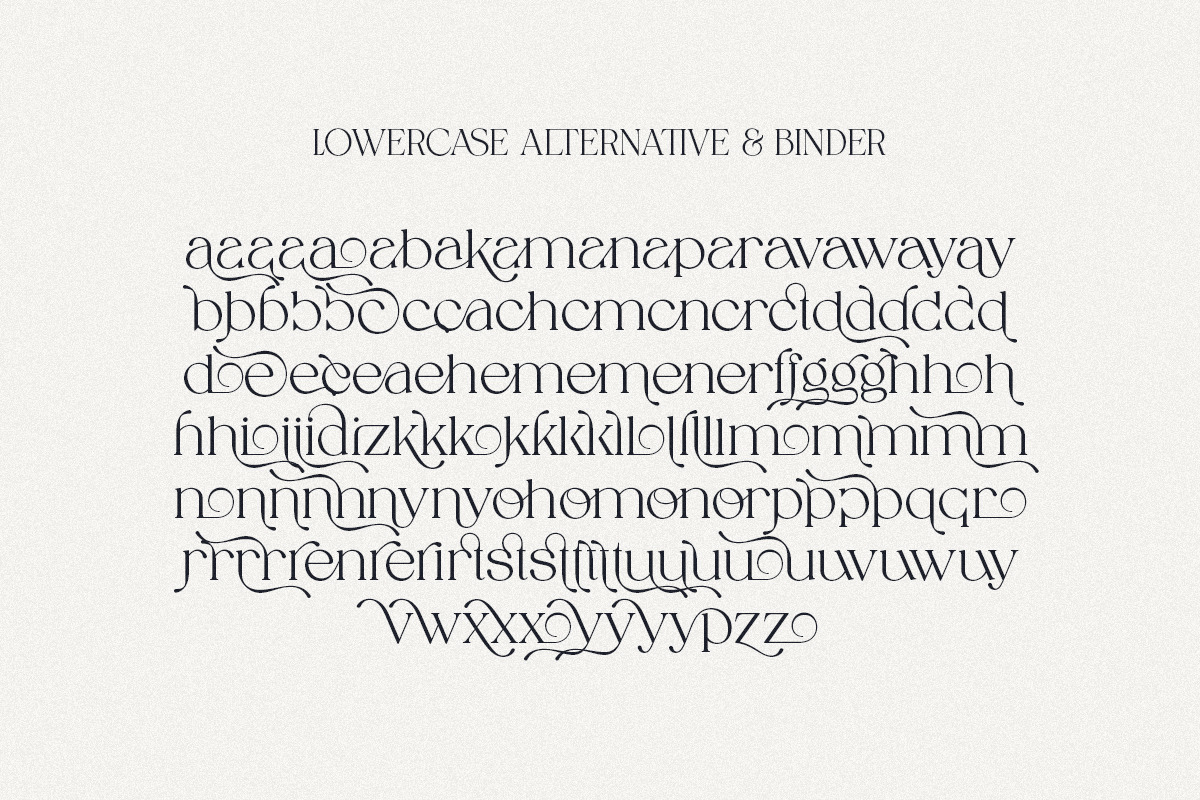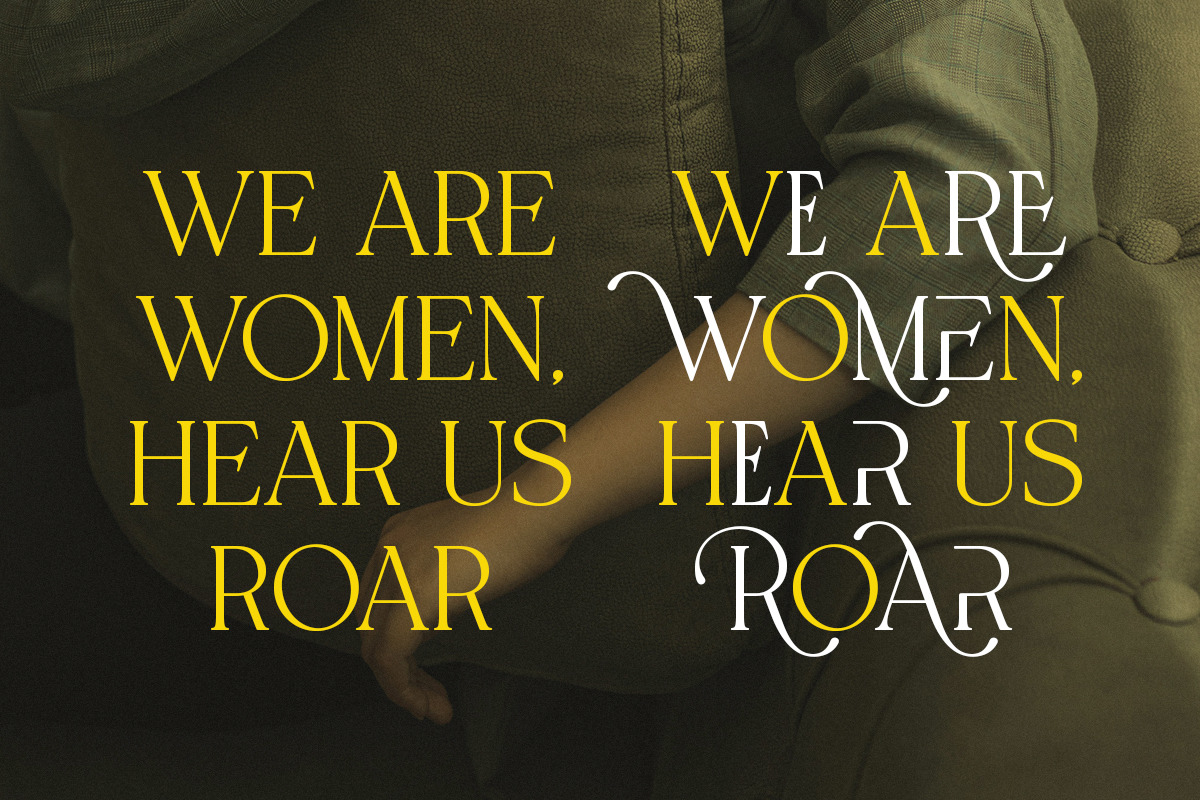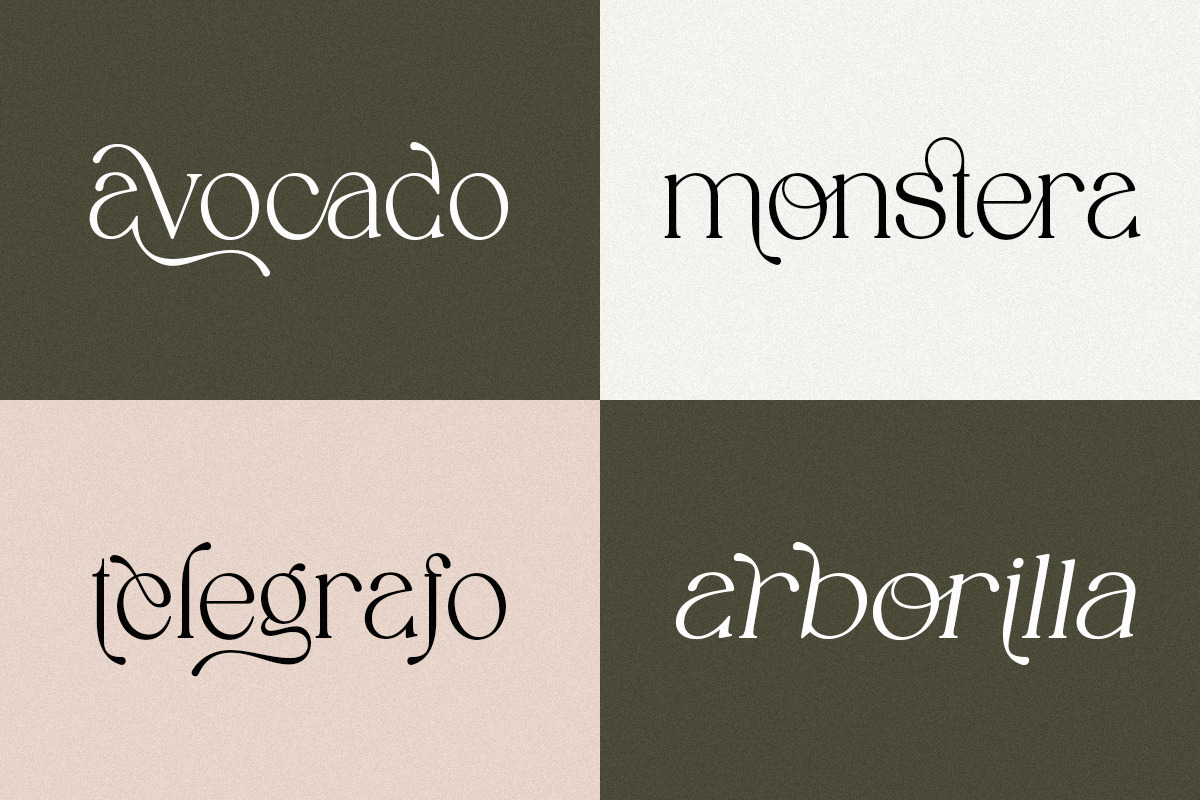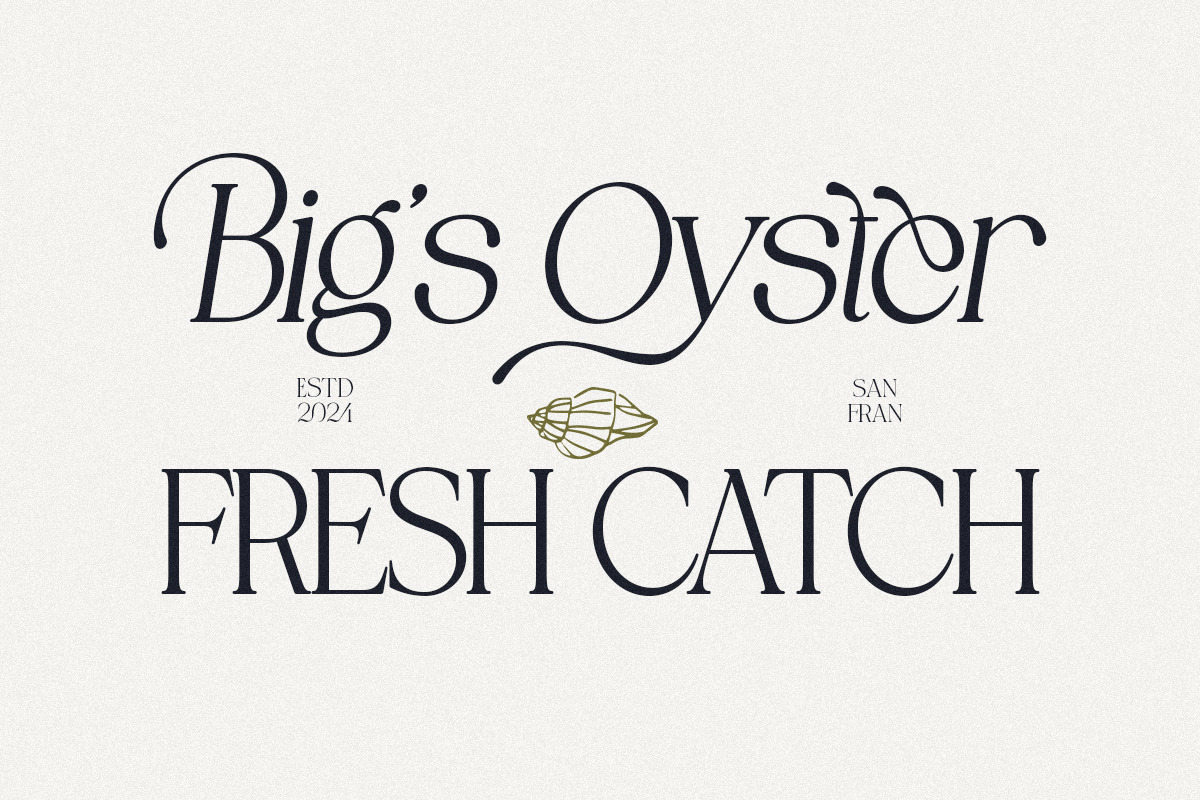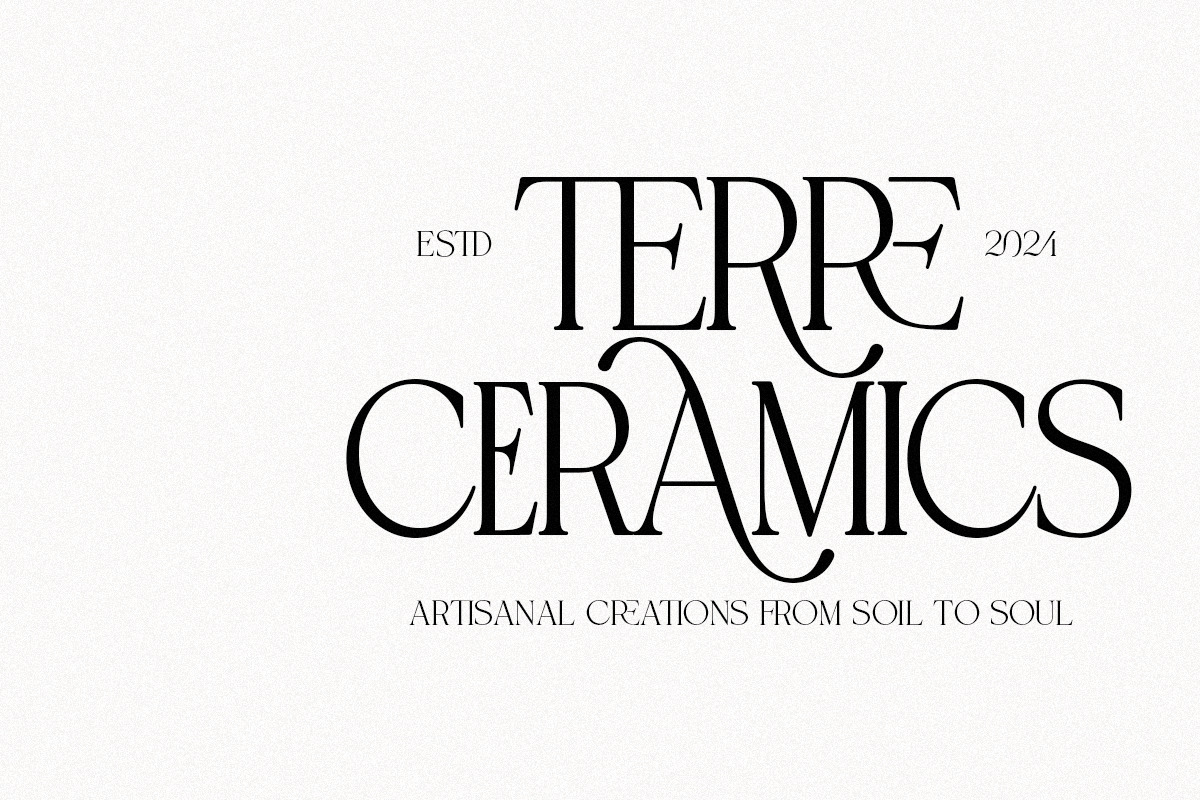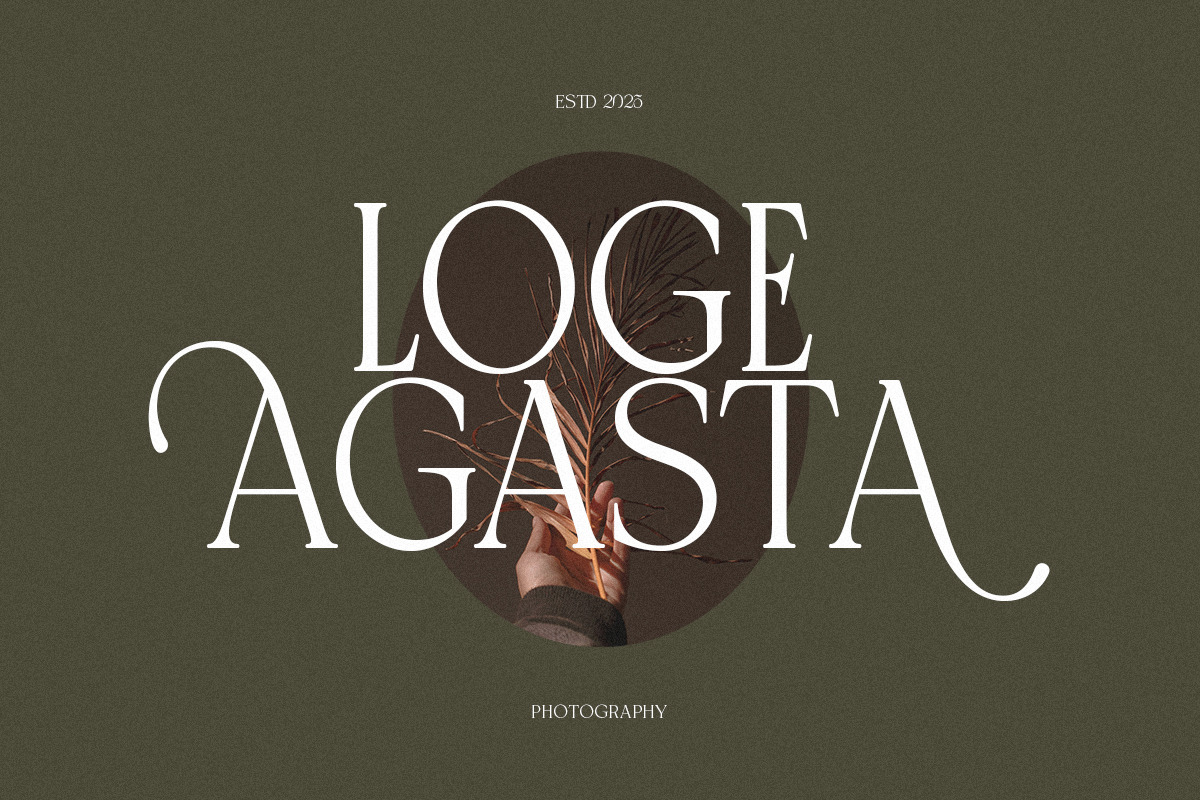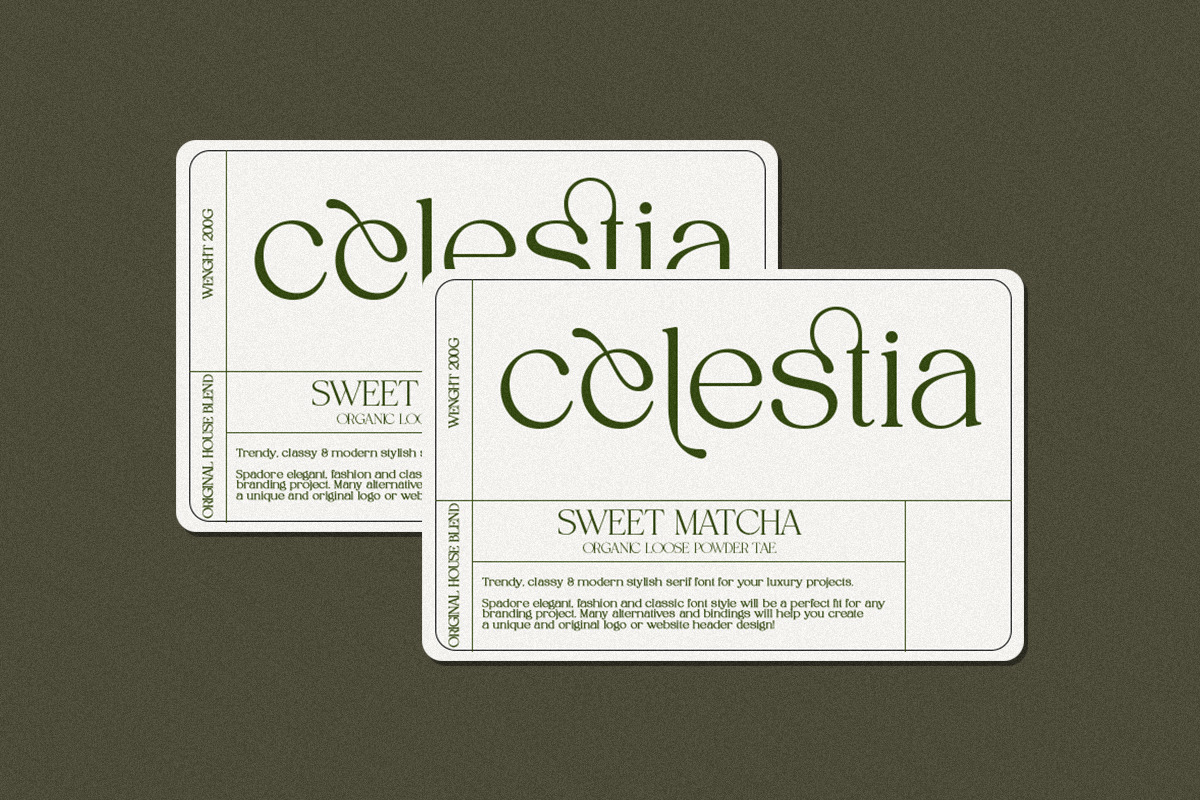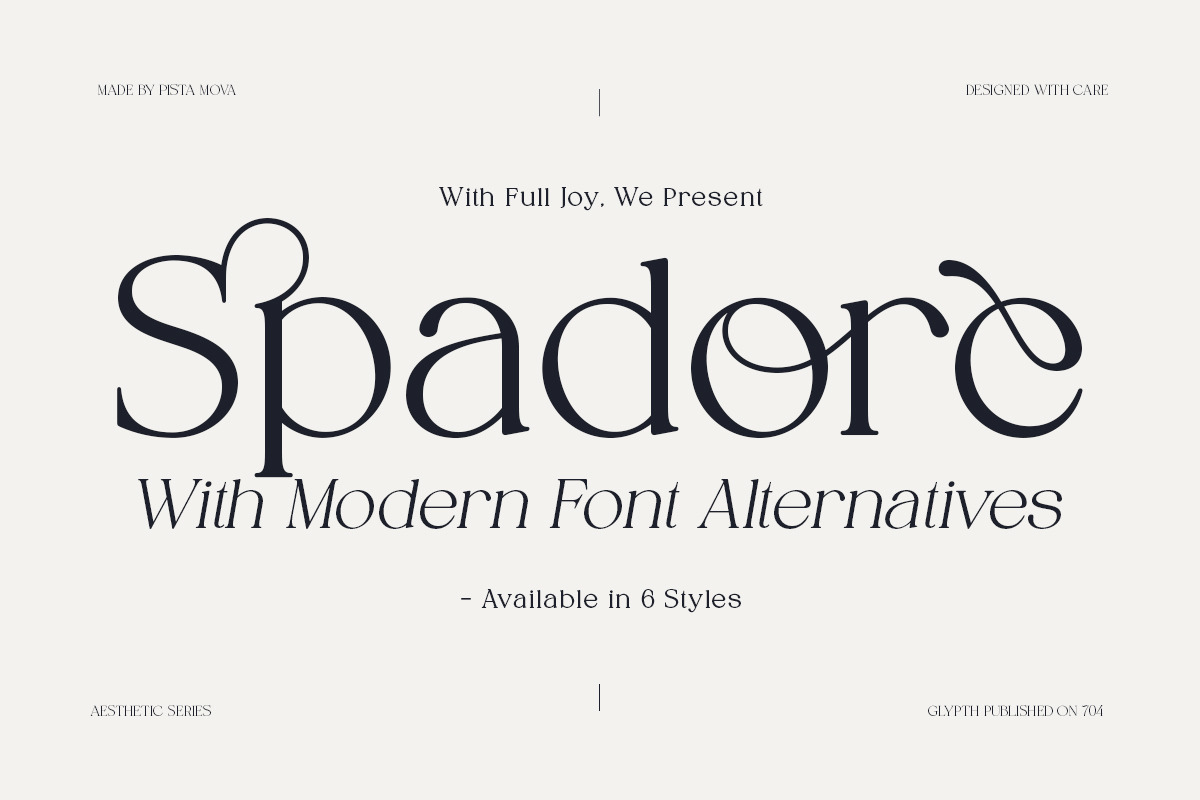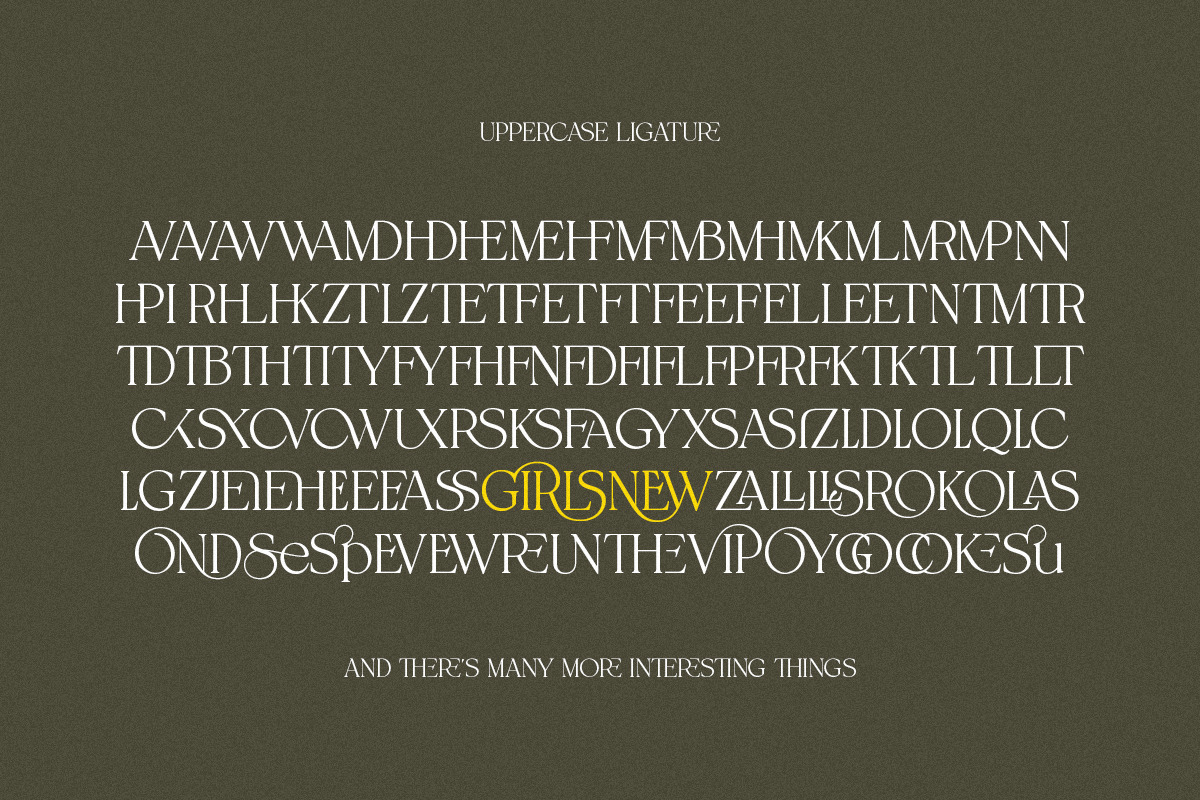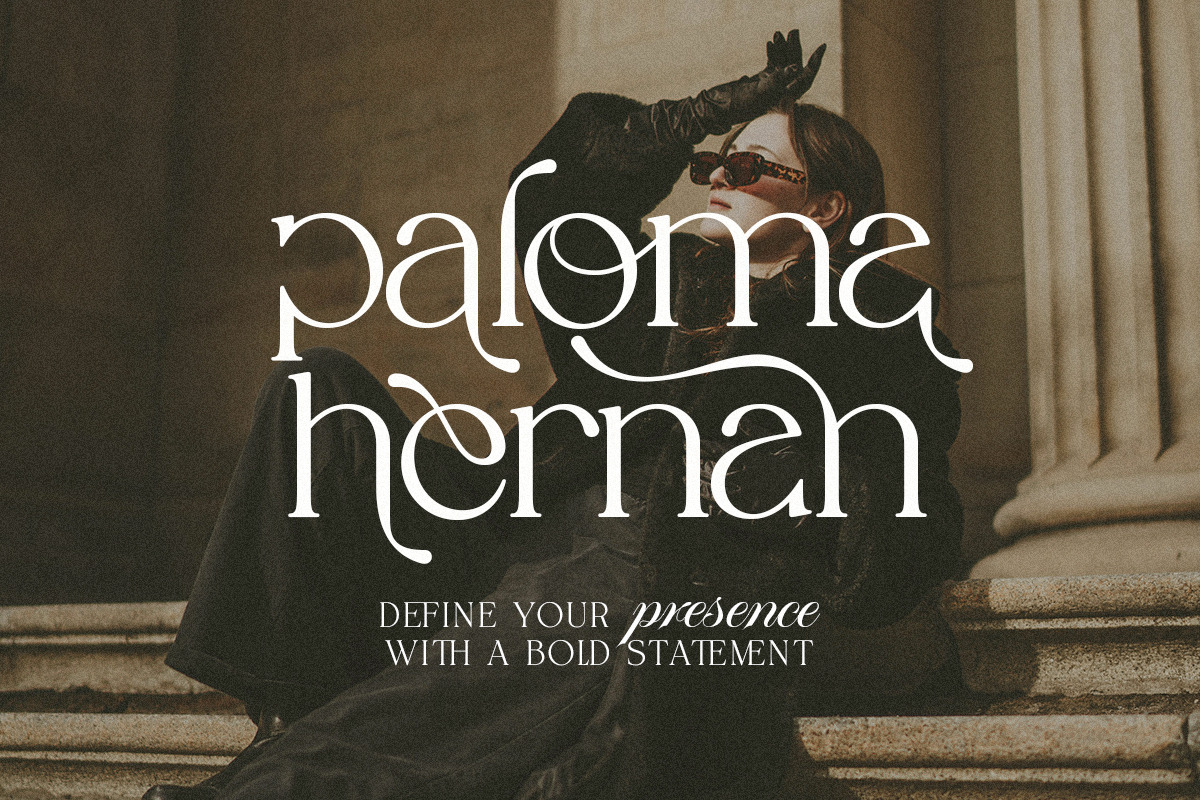
Spadore is a timeless blend of retro charm and modern sophistication, created to enhance your most luxurious design projects. With elegant curves, smooth serifs, and a touch of vintage style, Spadore brings bold style to branding, editorial layouts, packaging, and high-end web design.
This font is more than just pretty—it’s versatile and expressive. Packed with a variety of creative alternates, ligatures, and binders, Spadore lets you design a custom logo, eye-catching headline, or sophisticated website header with ease and originality.
Whether you’re working on a fashion label, beauty product, lifestyle magazine, or premium service brand, Spadore’s stylish and classic characters ensure your message feels classy and unforgettable.
- Alternative characters
- Lots of ligatures
- Perfect for modern branding projects!